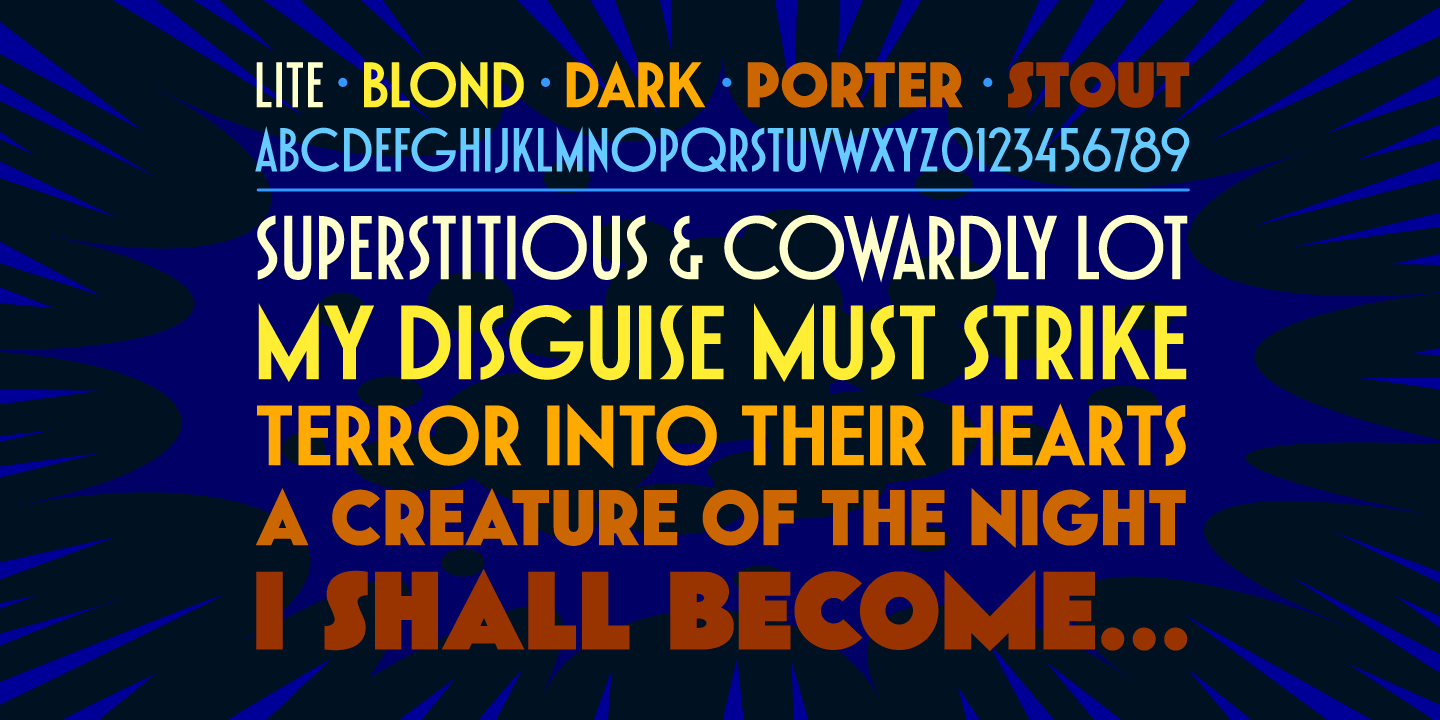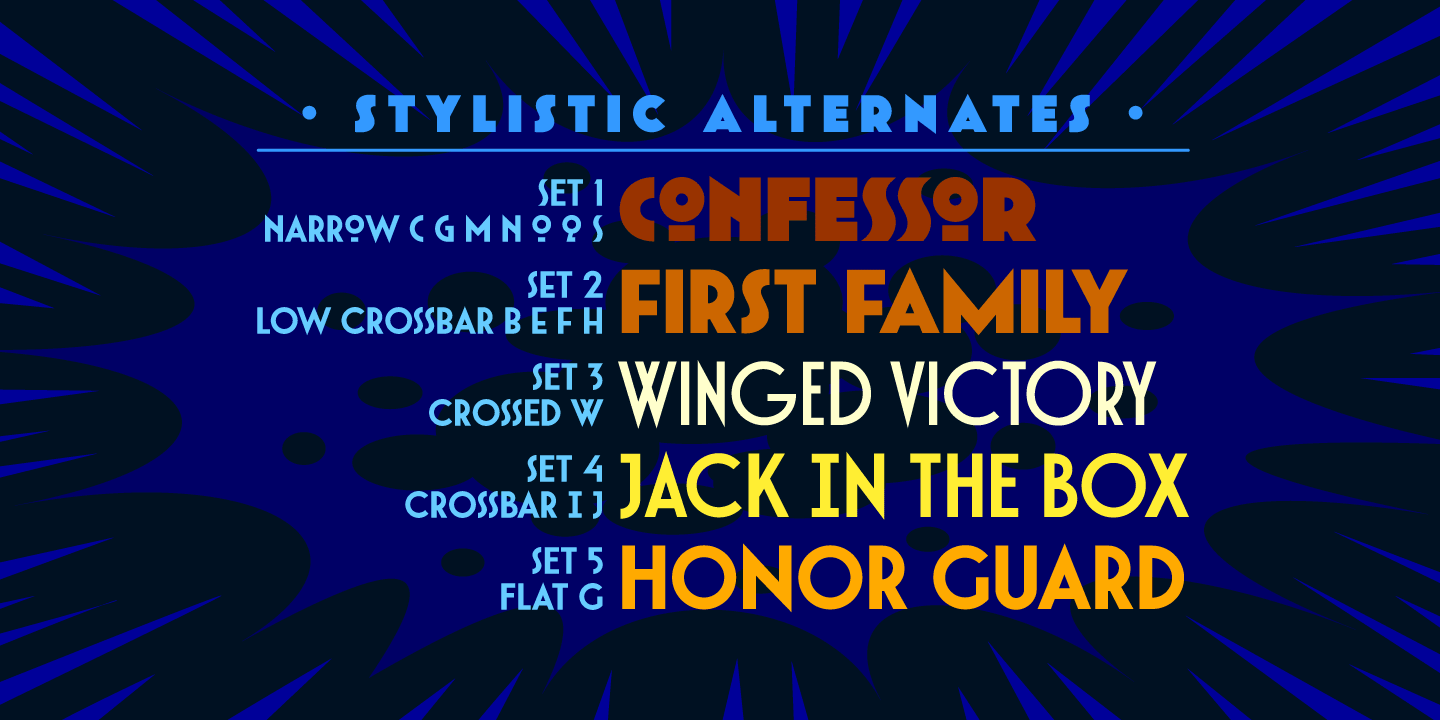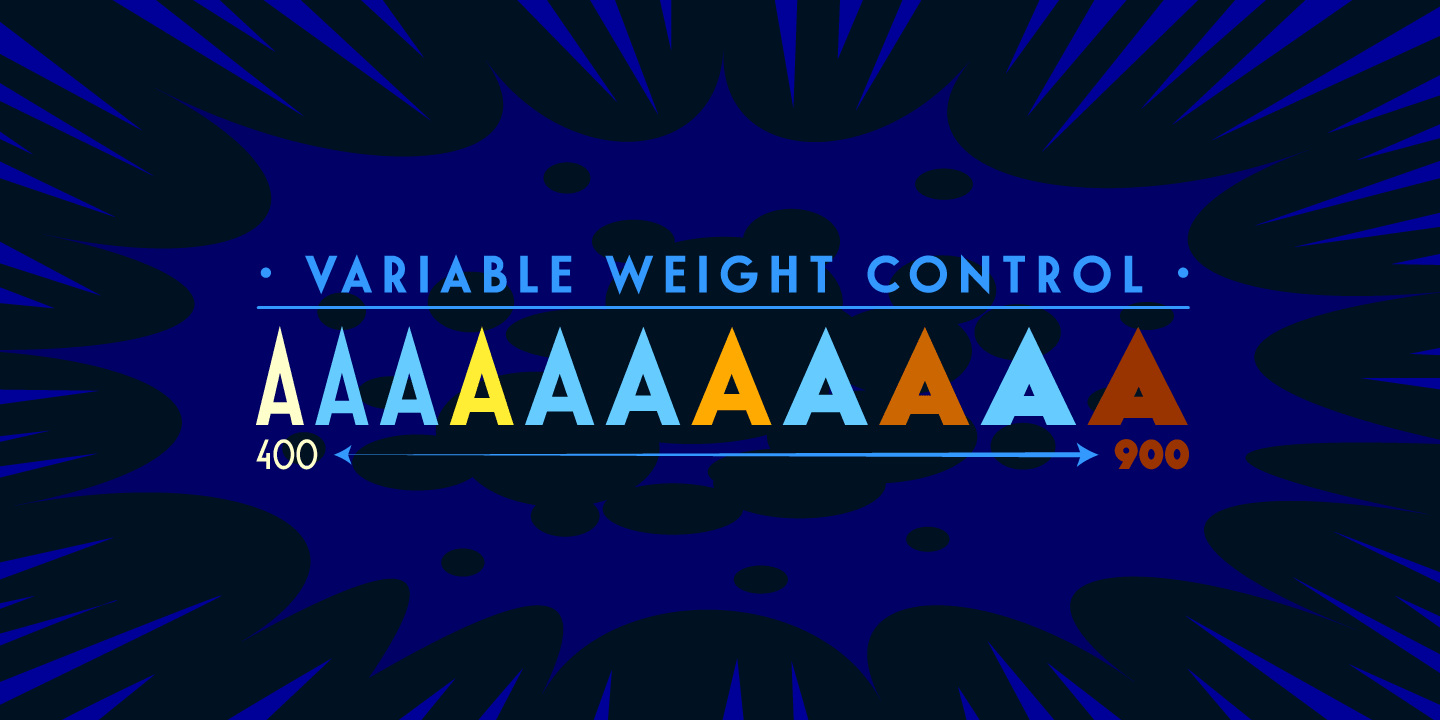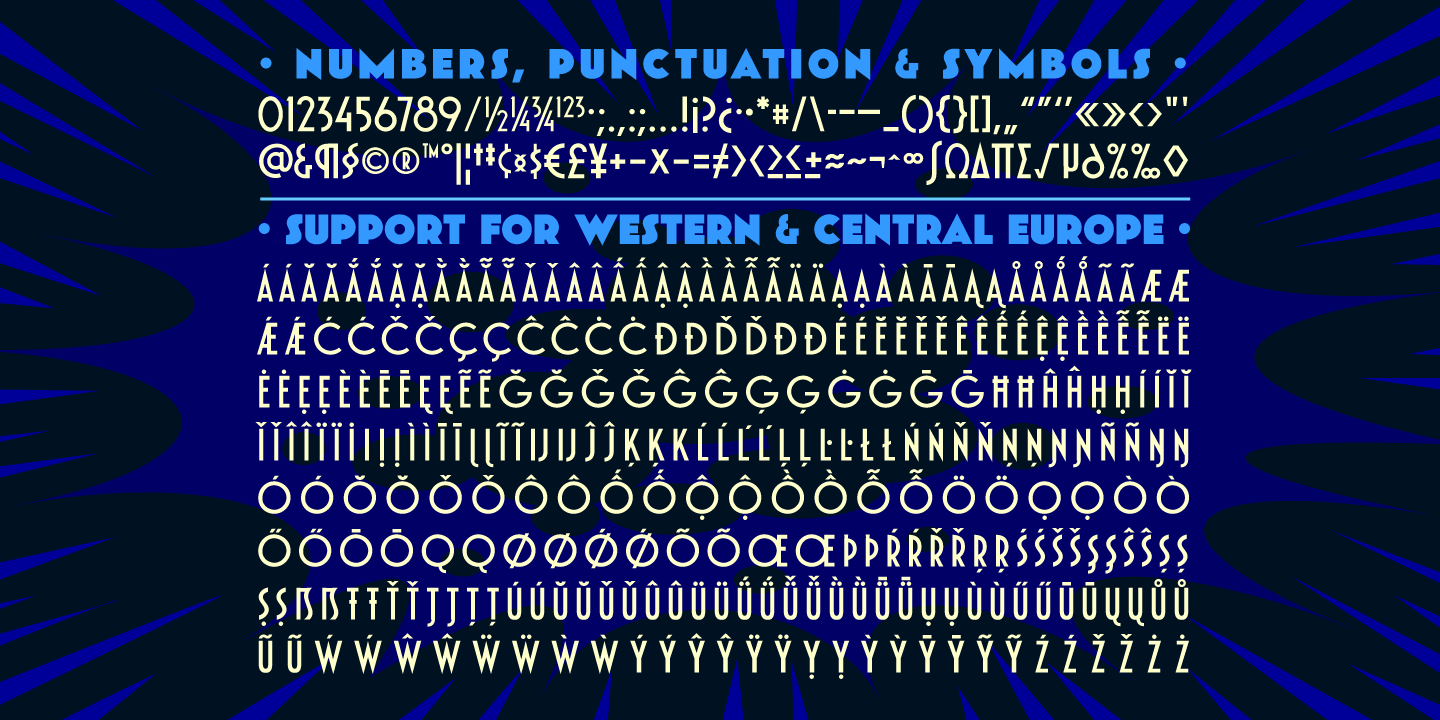
Dutch Courage Ale
Font Family by Comicraft Fonts
Sharp 1920s style Dutch Courage Ale is a family of five weights—including fresh extrabolds “Porter” & “Stout”—with a variable font to select any point between.  Each weight includes four sets of stylistic alternates for a barrel full of delicious options!